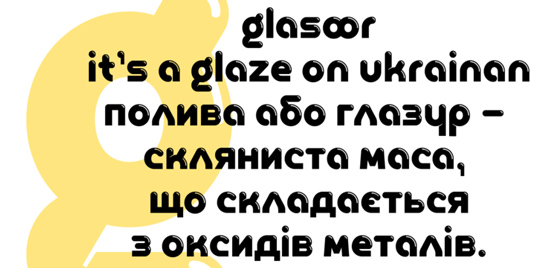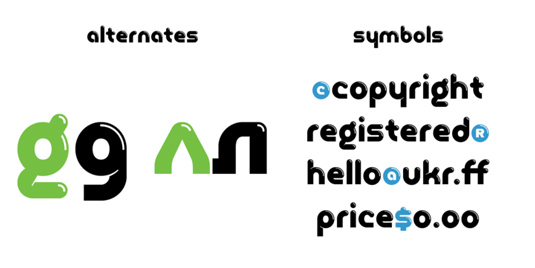
Font of the day: Glasoor
Glasoor by Sergiy Tkachenko
Today's font of choice Glasoor was created by type designer Sergiy Tkachenko. An experimental font, this playful design is perfect for posters, logos and more.